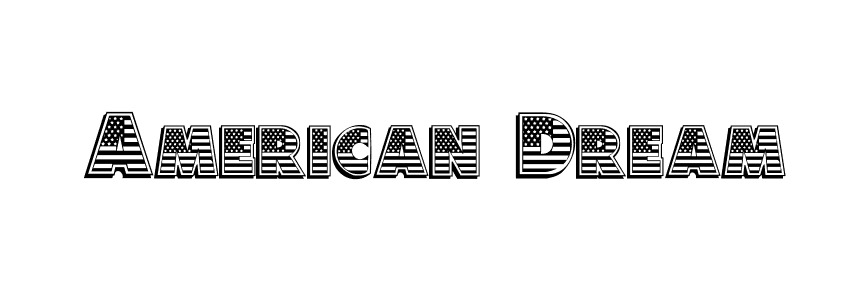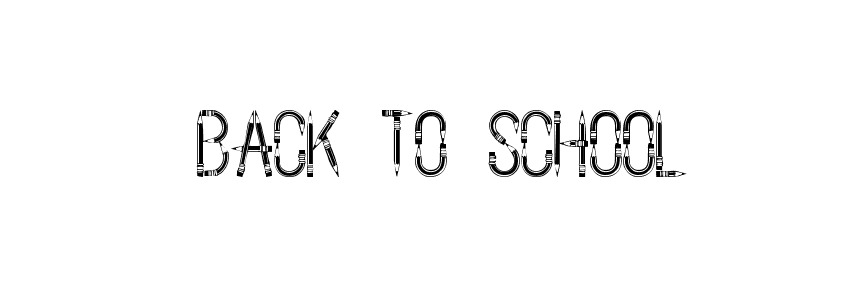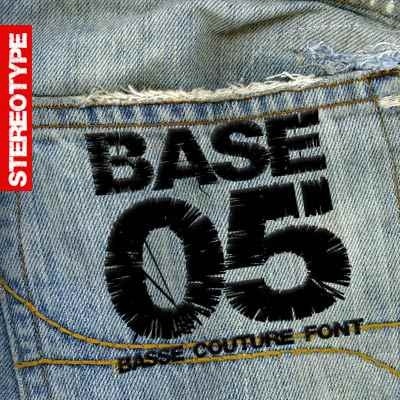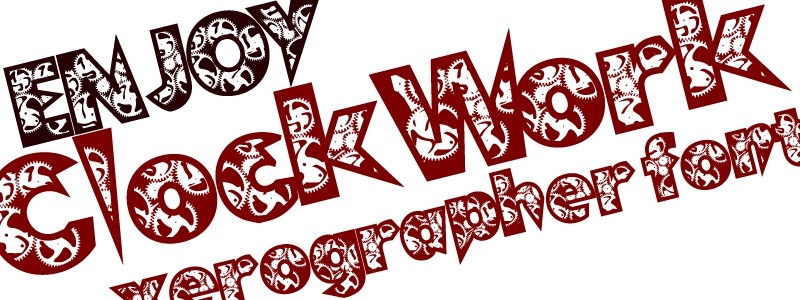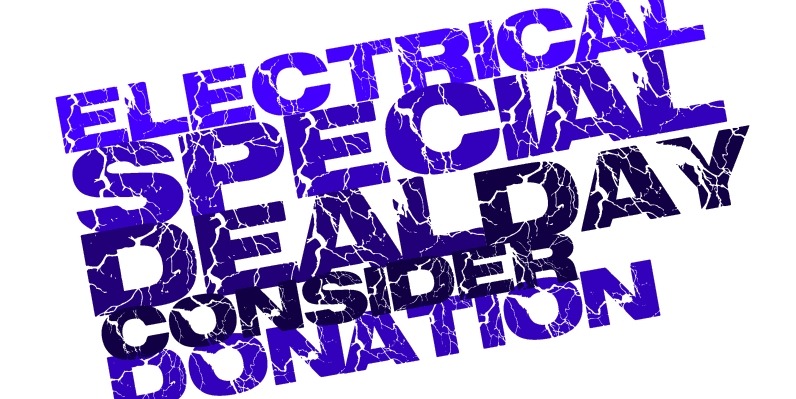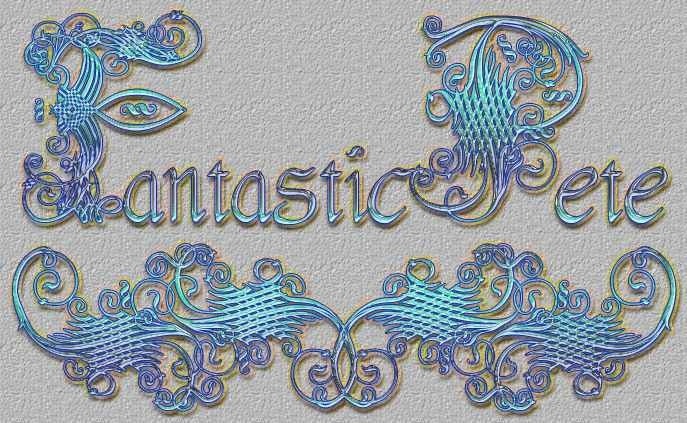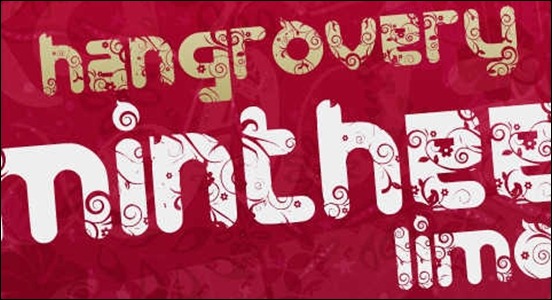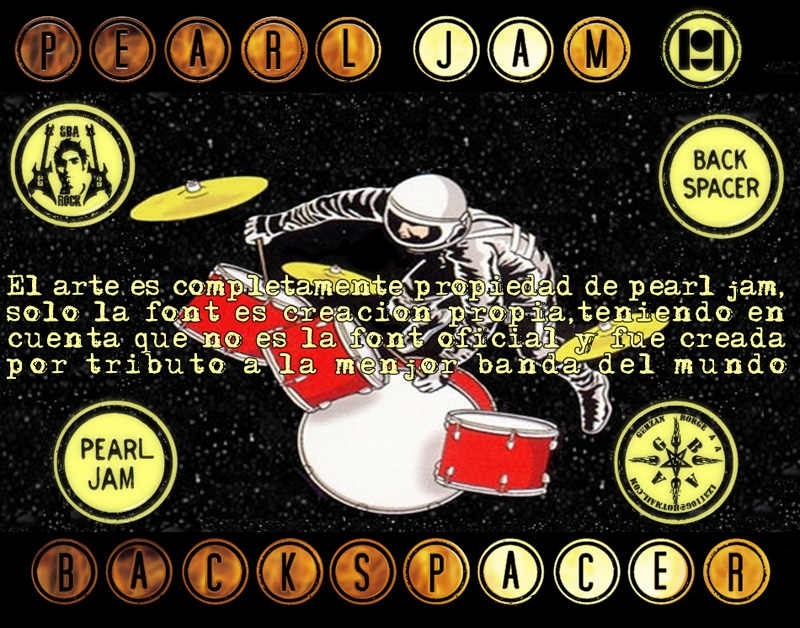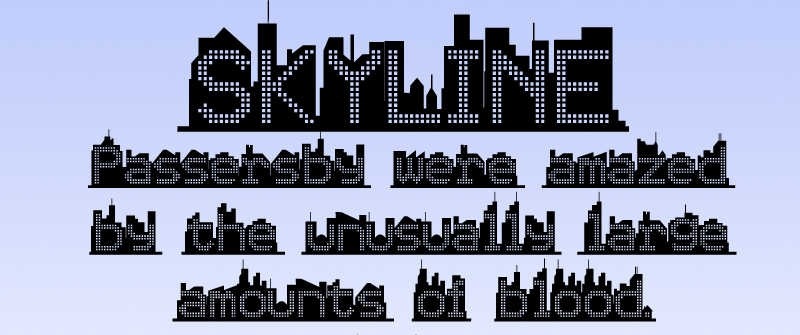
Fonts are among the most frequently used items in a designer’s toolkit.
That is why, it is a great convenience to have a sizable collection of various types of fonts. To help you save time from looking around for the real font treasures, we have previously showcased different types of fonts in the typography section. Today we are sharing with you some really cool decorative fonts to spice up your designs.
As the name suggests, these fonts are not simple, clean and for from main stream and may not work in every design. However most of them are art work themselves and if you find a good match some of them can really make a difference!
Embossing Tape Font
Orial
ZnikomitNo24 font
Exotica
Showtime font
Motel Vacancy
Capture it
AdamGorry Inline + Lights
VTKS Revolt
SeasideResort
Park Lane font
Aquiline
Abusive Pencil
Caricature
Herzog Von Graf font
Clock Work
K22 Spotty Face
Alpha Music Man
Vanessa
Scrabble
Back To School
Kingthings Pique’n’meex
Amadeus
AlaskanNights
Blomster
Barbarello
Oh my god stars !
American Dream
BeautySchoolDropoutII
Underground Font
Angelic War Font
Bevel’sAdvocateMono
Old Stamper
Alambrado Infernal
Leafy glade
Steel Town
Woven Brickwork Font
ambulance shotgun Font
Typewriter Keys
Base 05
Wet Arial
Fantastic Pete
FTF Minthee Limo
Electrical
Impact label
Magic Crystal
Dutch & Harley
Skyline
Backspacer Tribute To Pearl Jam